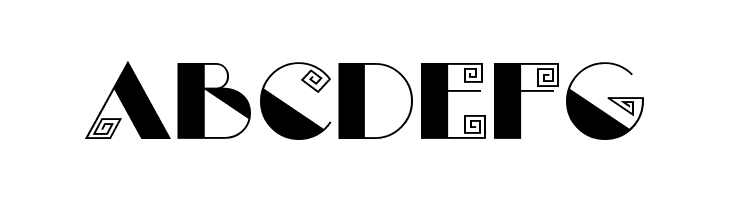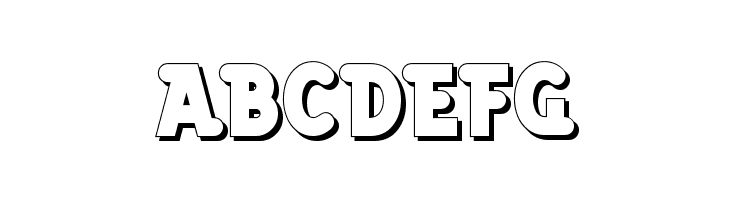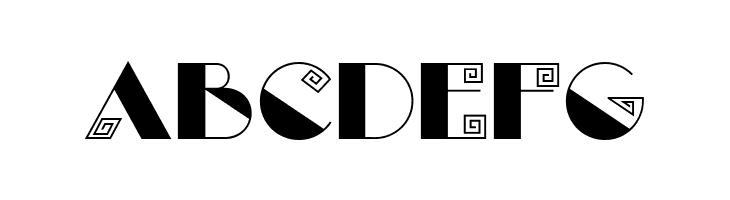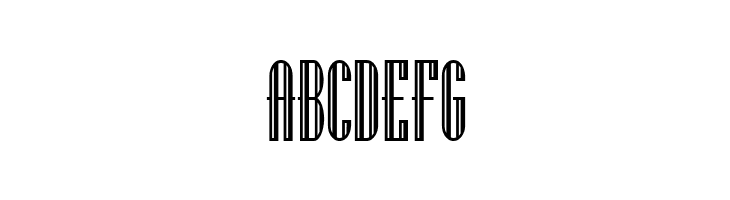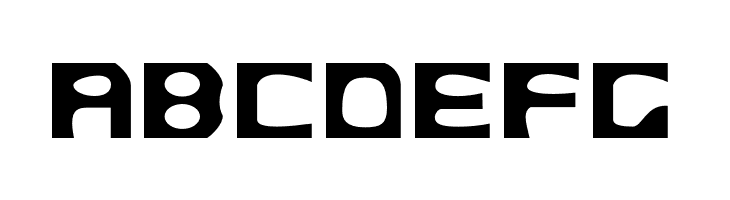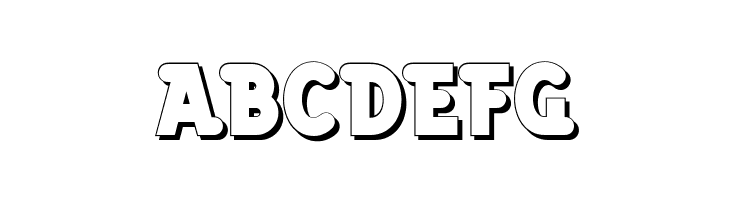
• La Reyna Catalina NF
• Labyrinth NF
A bold, geometric font with intricate spiral patterns and a decorative style.
• LabyrinthNF
A bold, decorative font with geometric and maze-like elements.
• Lackawanna Weed NF
A bold, outlined font with a playful, three-dimensional style.
• LackawannaWeedNF
A bold, playful font with a three-dimensional effect and retro-modern style.
• Ladora
• Lady Footwear LT
Silhouette dingbat font with women's footwear icons.
• Lagniappe Inline NF
A decorative inline font with Art Deco influences and high contrast strokes.
• LagniappeInlineNF
A tall, narrow font with elegant inline details and a modern aesthetic.
• Lake Wobegon NF
A bold, geometric font with angular elements and consistent stroke width.